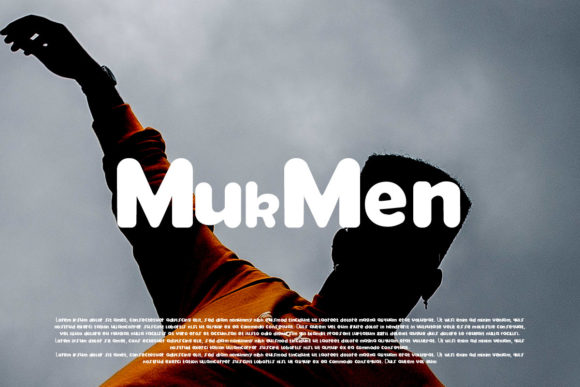
Mukmen Font
Introducing Mukmen Font, an astounding display font that takes artistry to a new dimension. Mukmen's strong and self-assured personality knows no bounds, establishing it as the perfect choice for any creative endeavor you can conjure up. Allow yourself to be swept away by its irresistibly versatile style and create visual masterpieces that will leave you breathless.
With Mukmen Font, the possibilities are endless:
- **A Masterpiece for Marketing:** Mukmen's inherent strength and confidence make it the ultimate tool for crafting powerful marketing materials. Design captivating brochures, billboards, and social media posts guaranteed to captivate and inspire your audience. Its captivating nature is the key to unlocking a world of design brilliance.
- **Unleash Creative Genius:** Are you ready to unleash your inner artist? Mukmen Font is your ticket to unleashing your boundless creativity. Create stunning logos that breathe life into your brand's identity, inspiring designs that ignite your imagination, and artistic masterpieces that reflect your unique vision. Mukmen Font is the catalyst for your creative revolution.
- **Digital Designs that Dazzle:** Embrace the world of digital art and design with Mukmen Font as your fearless companion. Let your imagination soar as you conjure up eye-catching website designs, captivating social media graphics, and awe-inspiring digital illustrations. Mukmen Font is your gateway to an immersive digital realm where pixels dance and colors ignite.
- **Art Exhibitions that Captivate:** Take your art exhibitions to soaring new heights with Mukmen Font. Its bold presence and artistic flair will transform your exhibits into captivating experiences. Mukmen Font turns your artwork into masterpieces, captivating your audience and leaving them in awe. Elevate your art to new dimensions and create an unforgettable impression.
- **Journals that Speak to the Soul:** Turn your everyday journaling into an artistic odyssey with Mukmen Font. Its enchanting touch adds a personal flair to your written thoughts and reflections. Let the flow of your pen dance across the page, guided by Mukmen's mesmerizing style. Transform your journal into a captivating narrative, a visual symphony of words and art.
Mukmen Font is more than just another typeface; it's an open invitation to unleash your creativity and embark on a journey of visual exploration. Its bold character and versatility are the keys to unlocking a world of design possibilities, empowering you to create masterpieces that resonate with your unique artistic vision. Dare to embrace the Mukmen experience and witness the transformation of your creative dreams into breathtaking realities.